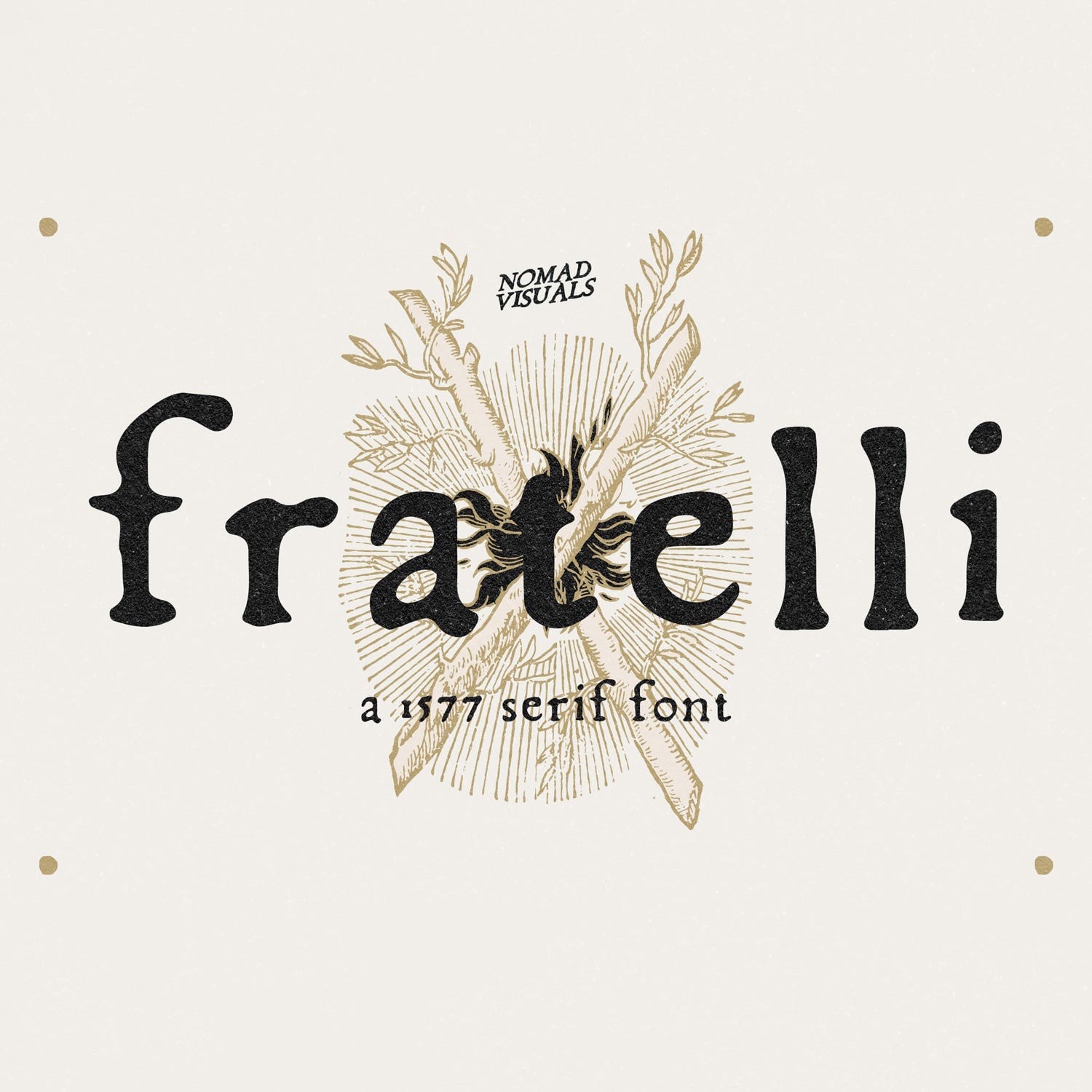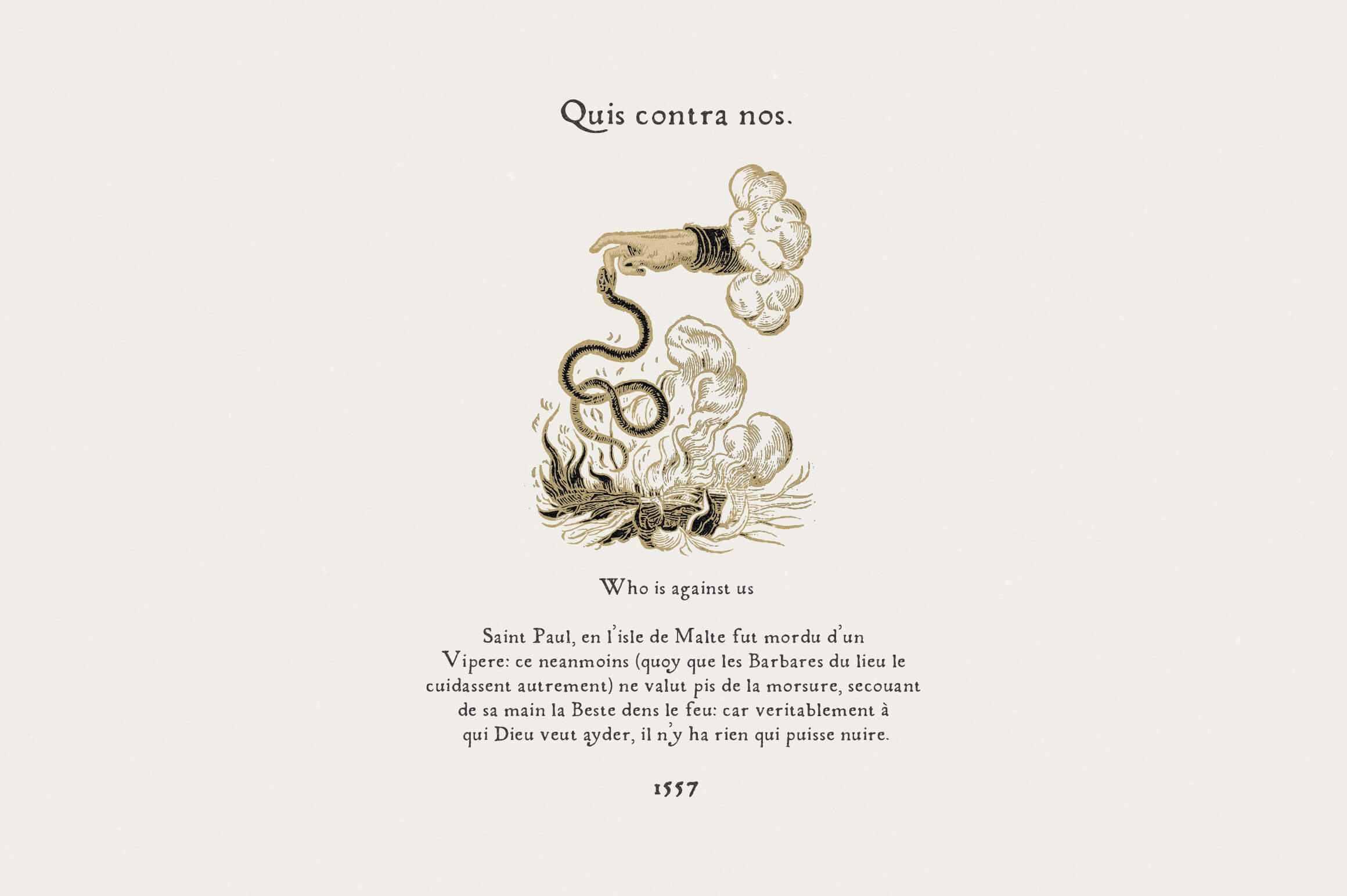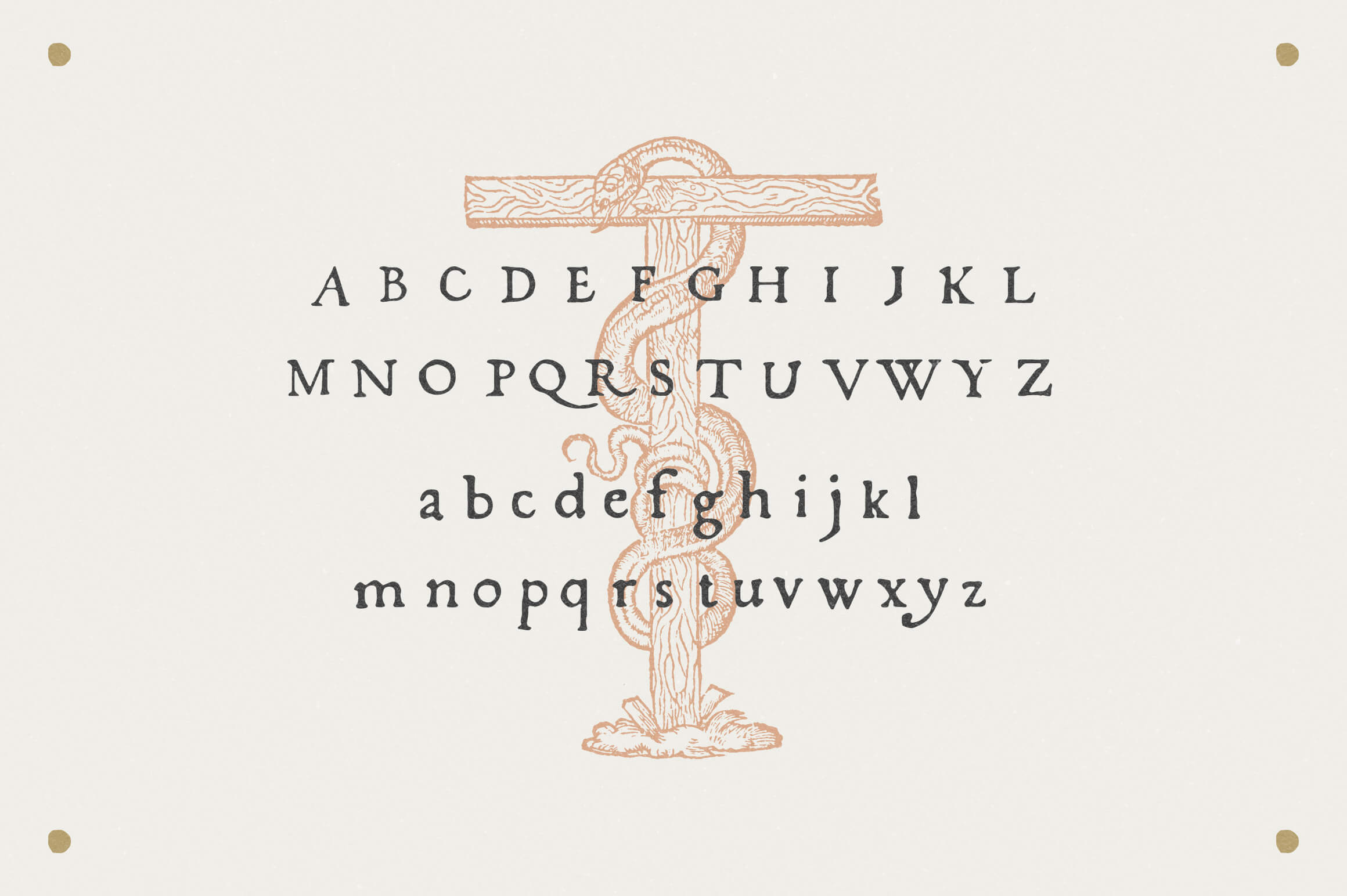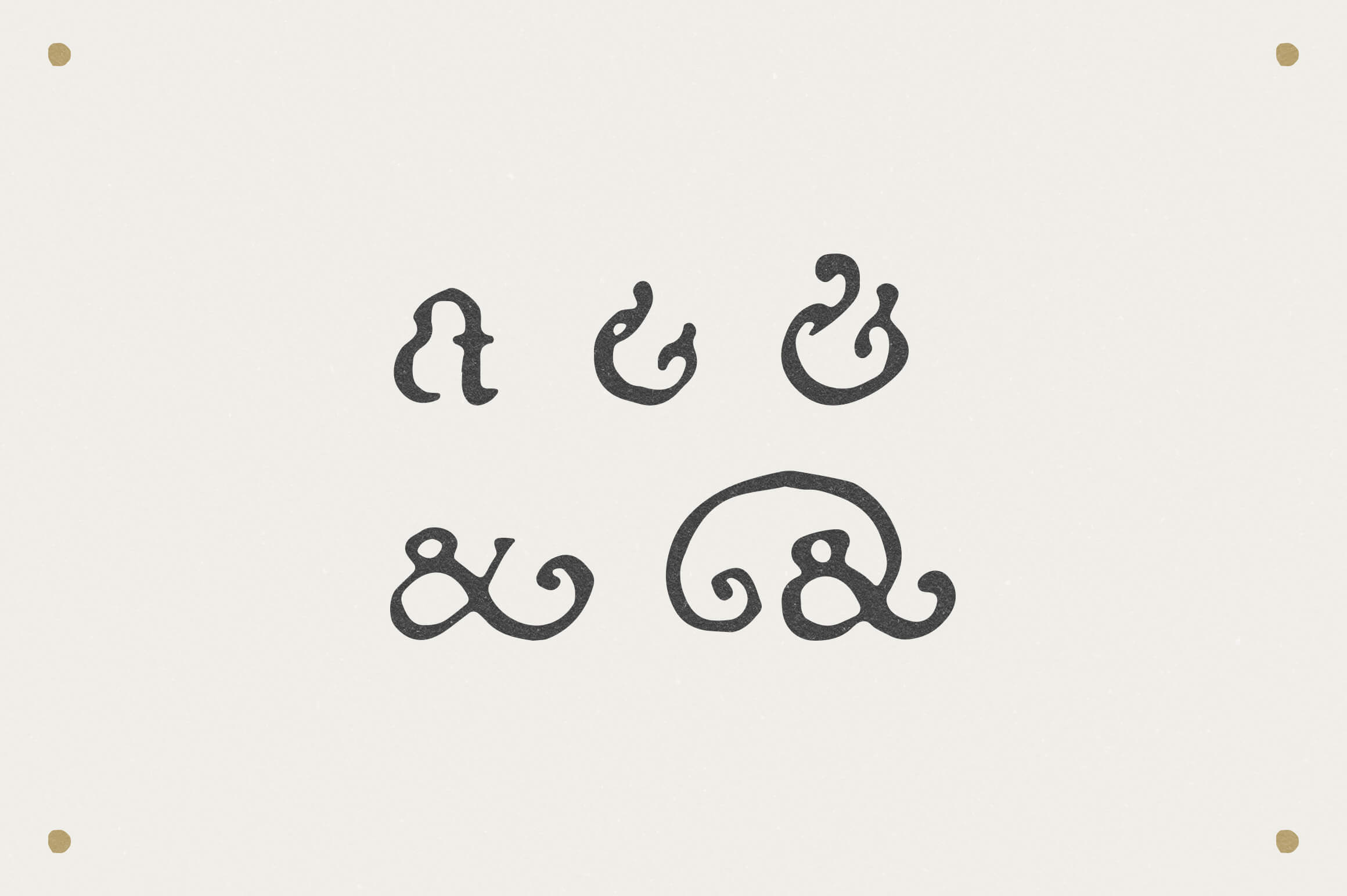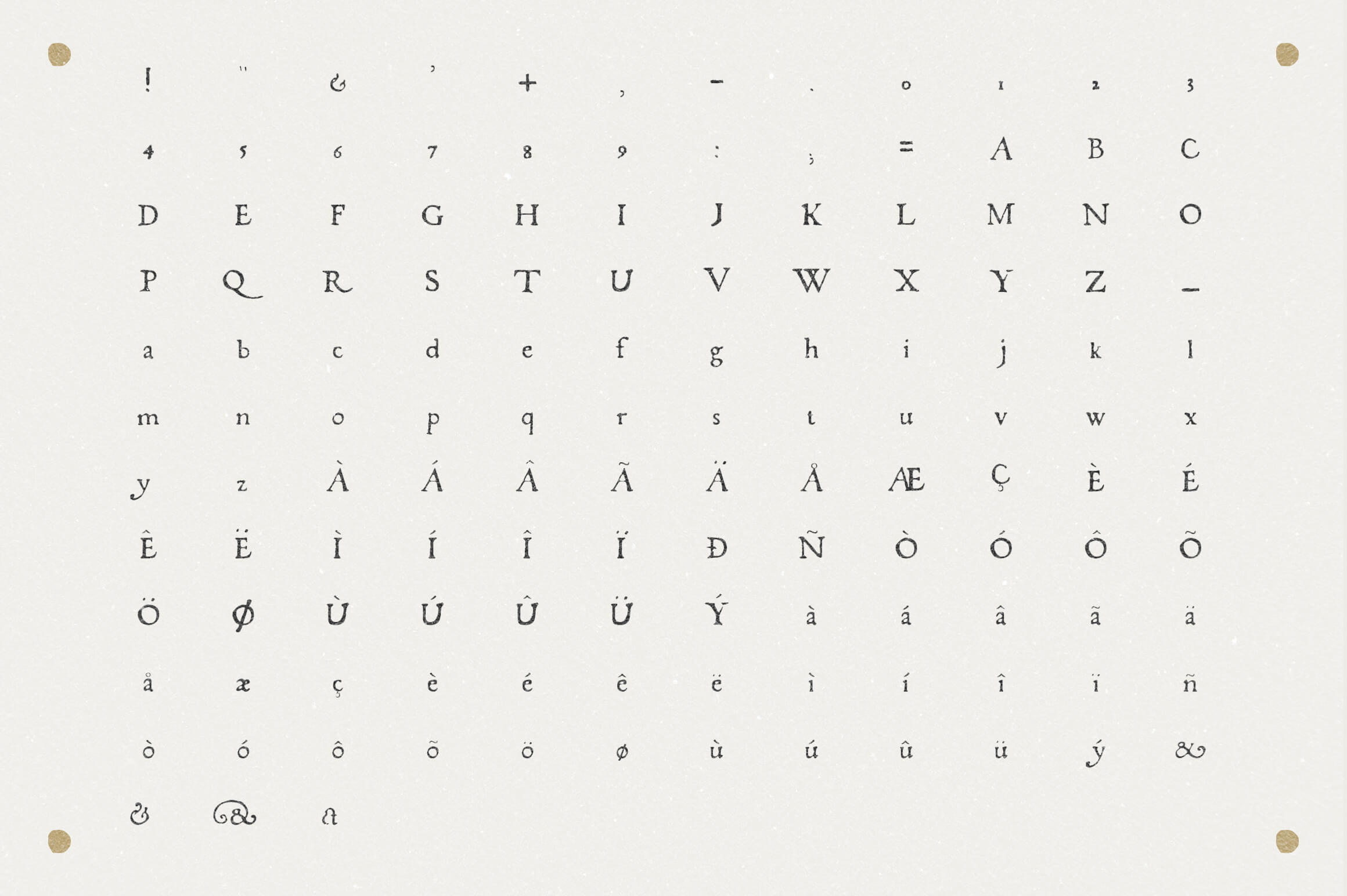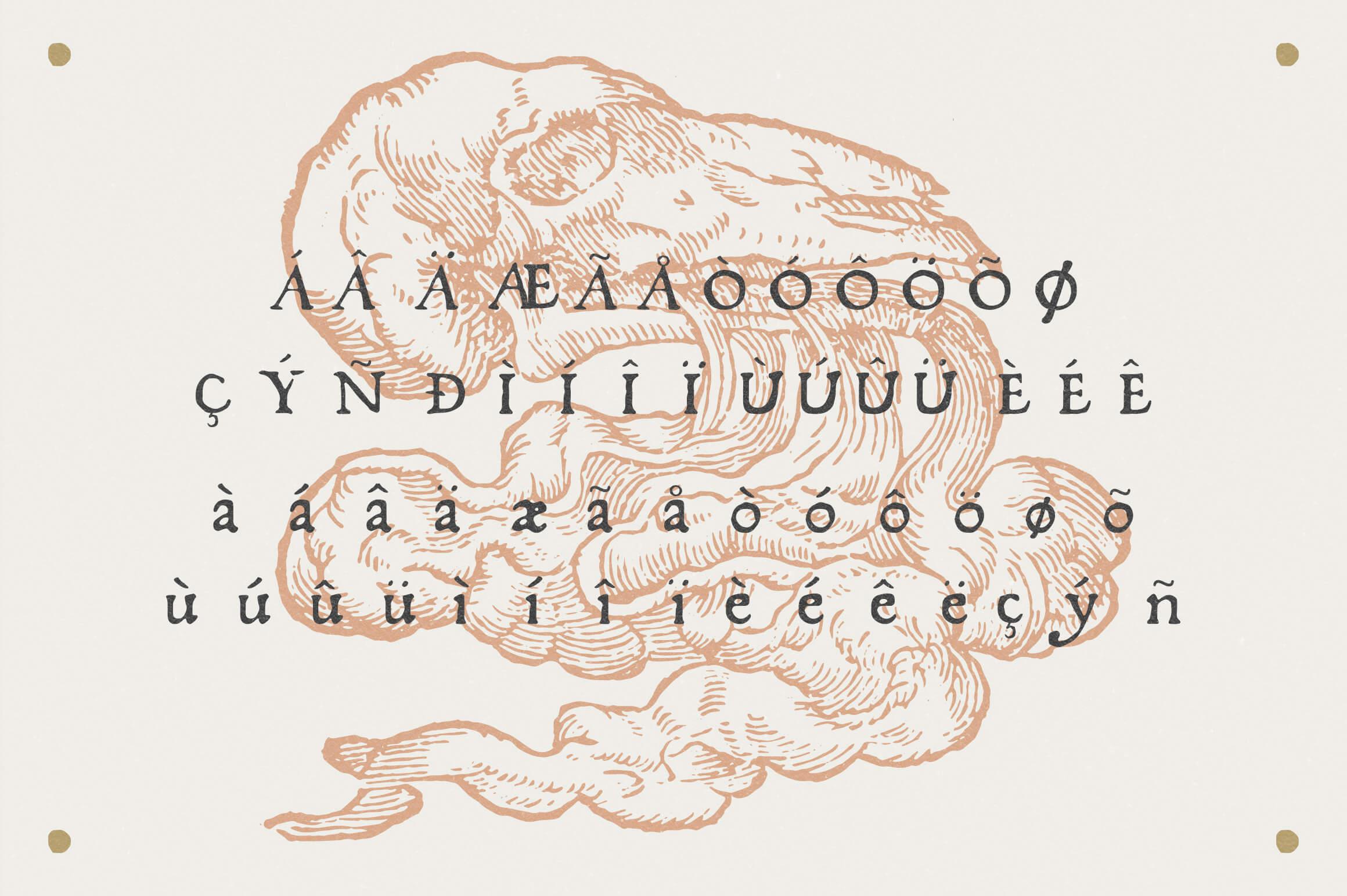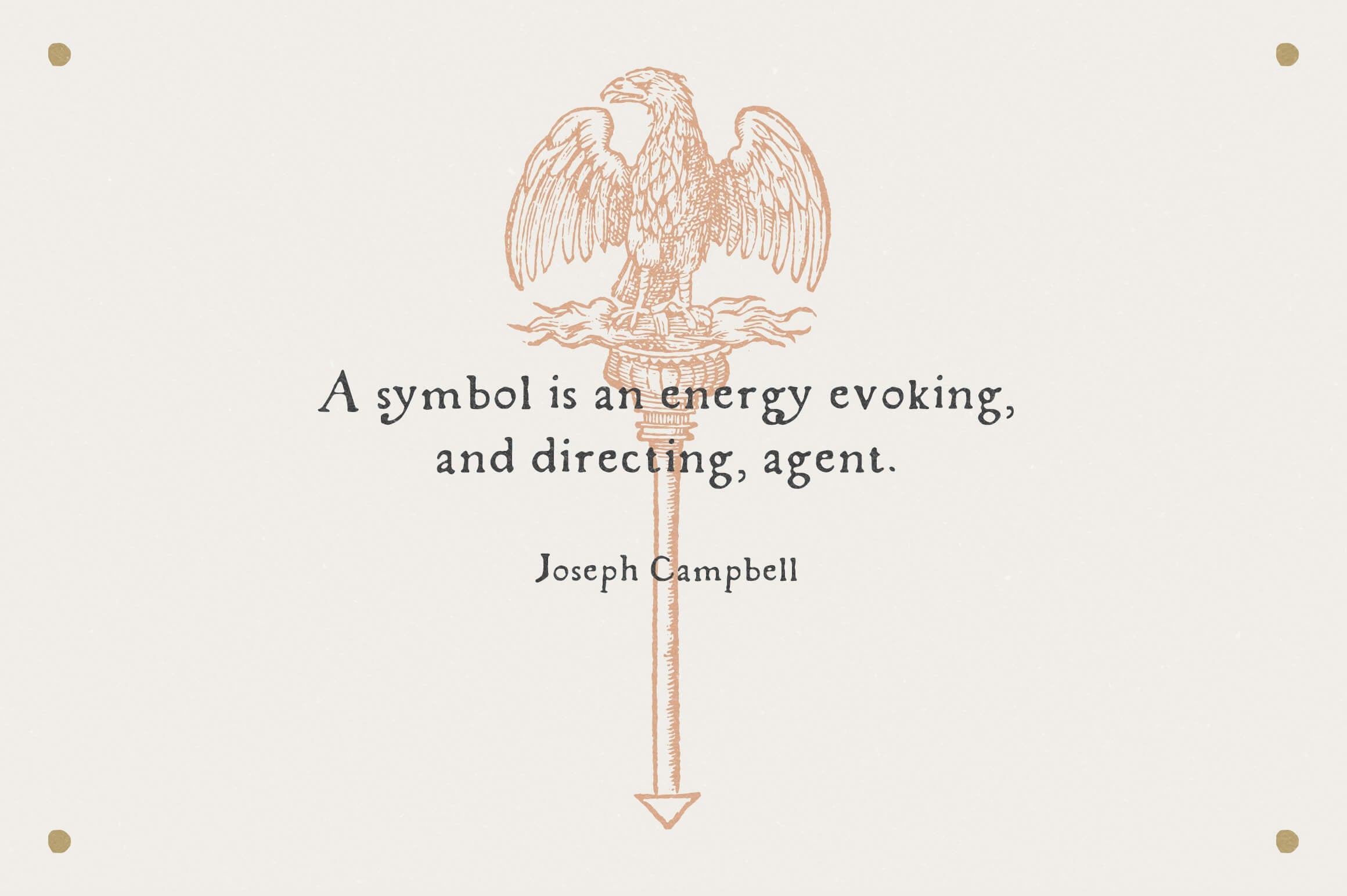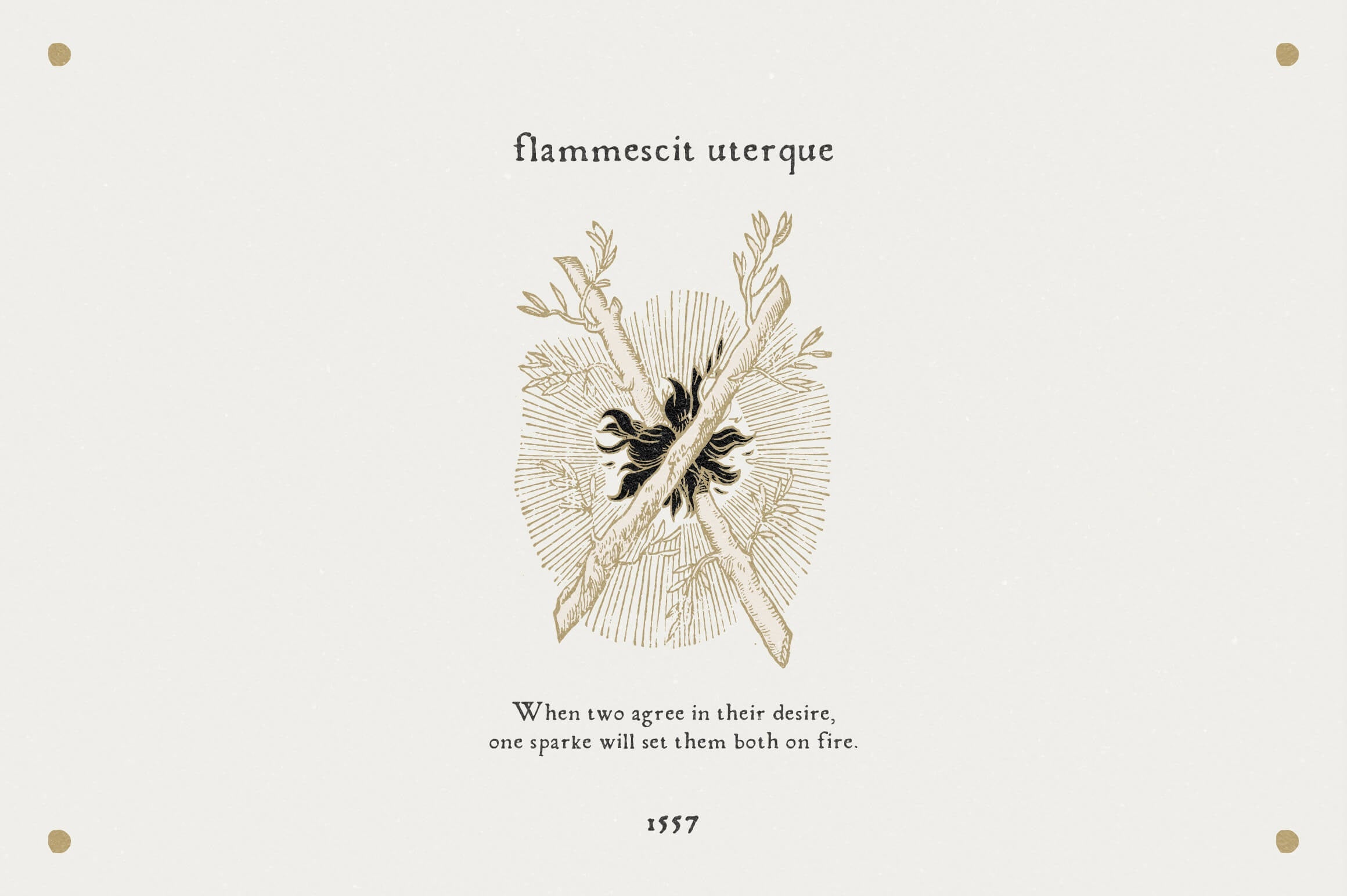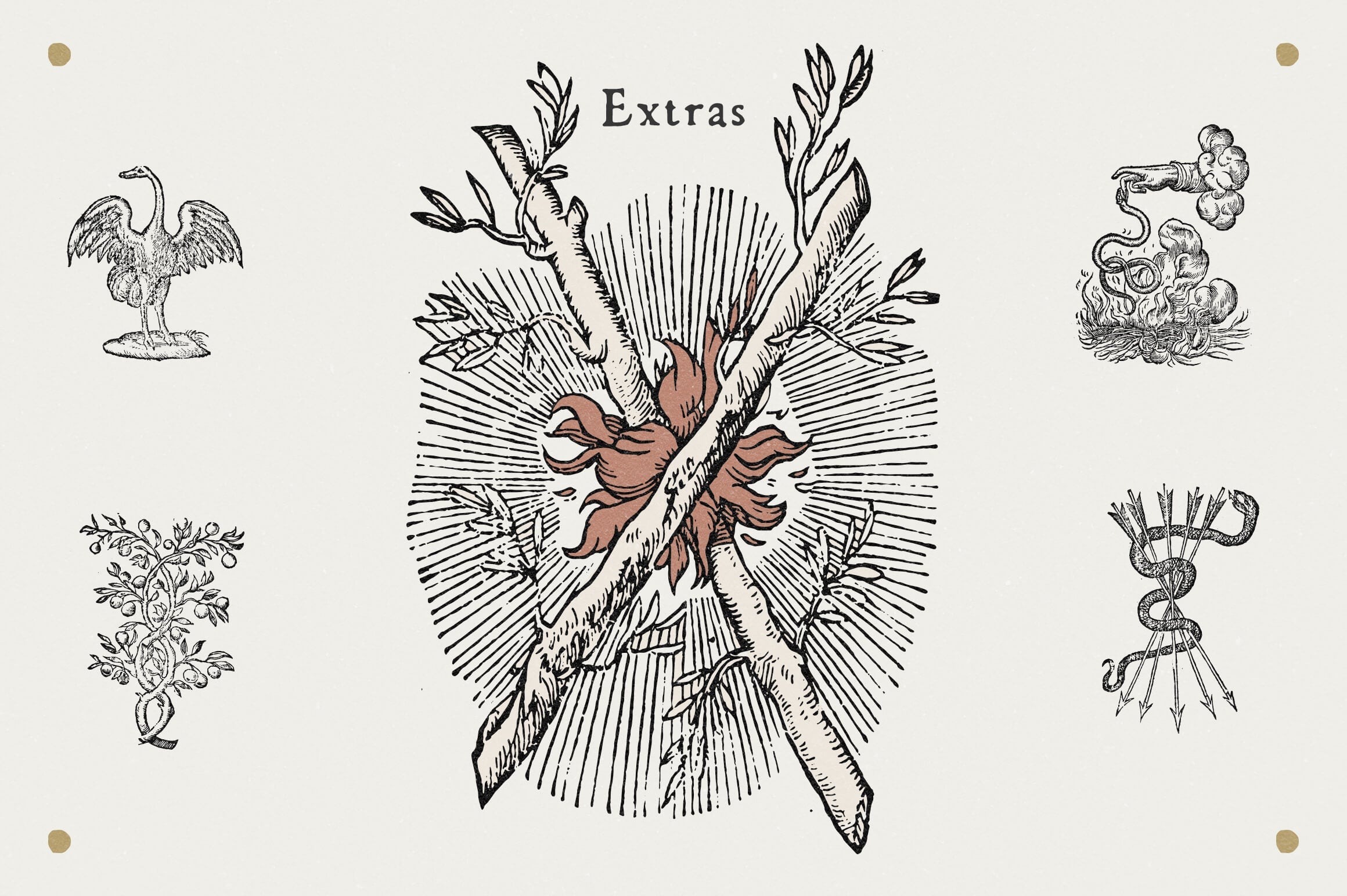
Fratelli - Serif font + Extras
Fratelli is an antique serif font, inspired by a 1577 alchemy volume, featuring unique shapes and imperfections. It includes a full set of characters, basic punctuation, and international language support, along with five illustrations from the 1551 'Symbola Heroica' volume.
Ideal for vintage-inspired graphic design and historical branding projects. Perfect for posters, logos, labels, and book covers, ensuring a distinctive charm that evokes a sense of timeless elegance.